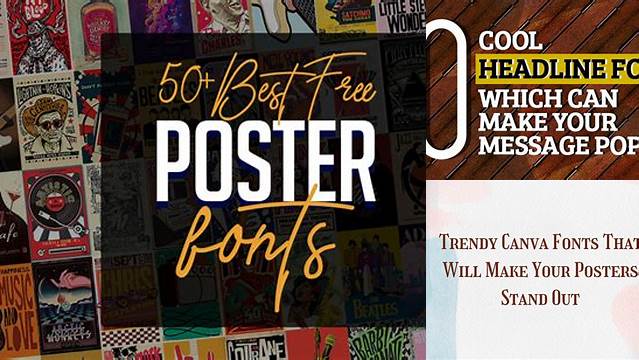
Free Poster Fonts: Stunning Titles That Grab Attention
Hey everyone! Are you looking to create eye-catching posters but struggling with the perfect title font? Don't worry, you're not alone! The title is the first thing people see, and it can make or break your poster's impact. Choosing the right font is crucial for grabbing attention and conveying your message effectively. Luckily, there's a treasure trove of free title fonts out there just waiting to be discovered. This article will dive into the world of free fonts, giving you a rundown of fantastic options for posters and guiding you on how to choose the best one for your project. Let's get started and make your posters shine!
Why the Right Title Font Matters
The title font on a poster is more than just words; it's a visual representation of your message's tone and style. Think of it as the voice of your poster, shouting out to the world. A well-chosen font can instantly communicate the feeling you want to evoke, whether it's excitement, seriousness, fun, or sophistication. Imagine using a playful, cartoonish font for a serious academic conference poster – it just wouldn't work, right? The font needs to match the content and purpose of your poster to create a cohesive and impactful design.
Furthermore, the right font plays a vital role in readability. A beautifully designed font is useless if people can't easily read it from a distance. When people walk by your poster, you want your message to jump out at them and be legible even at a glance. If the font is too thin, too decorative, or too cramped, it might get lost in the background or become a visual blur. Selecting a clear, bold, and appropriately sized font ensures that your title grabs attention and communicates its message effectively.
Beyond readability, the font you select helps establish visual hierarchy. The title is the most important element on the poster, and it should visually dominate the other text. A strong, attention-grabbing font will naturally draw the viewer's eye to the title first, creating a clear entry point to your poster's message. By contrasting the title font with the body text in terms of size, weight, or style, you guide the viewer's eye through the information in a logical and engaging way. A well-defined visual hierarchy makes your poster more appealing and easier to understand.
Lastly, the best title fonts contribute significantly to the overall aesthetic appeal of your poster. A well-chosen font elevates the design and makes your poster look polished and professional. A font that complements the imagery, color scheme, and overall theme of your poster will create a unified and visually pleasing result. This visual harmony is crucial for making a strong impression and ensuring your poster stands out from the crowd. In essence, the title font is a critical design element that should be carefully considered to maximize the effectiveness of your poster.
Font Squirrel: If you're serious about typography, Font Squirrel is a must-visit. This website focuses on high-quality, commercially licensed fonts that are 100% free for commercial use. Font Squirrel carefully curates its collection, ensuring that all the fonts meet a high standard of design and usability. They also offer a handy Font Identifier tool, which can help you identify a font from an image. This is incredibly useful if you've seen a font you like but don't know its name. Font Squirrel is a reliable source for finding fonts that are both beautiful and legally safe to use in your projects.
Creative Market (Free Goods): Creative Market is a marketplace for design assets, and they offer a section with free goods that changes every week. This often includes free fonts, graphics, and other resources. Keep an eye on the Creative Market free goods section, as you might discover some hidden gems for your poster projects. The freebies are usually available for a limited time, so it's a good idea to check back regularly to see what's new.
Behance and Dribbble: These are more than just font repositories; they're online communities for designers to showcase their work. Many designers offer free fonts as part of their portfolios on Behance and Dribbble. These fonts often have a unique, handcrafted feel, making them perfect for projects that need a personal touch. Browsing through these platforms can be a great way to discover new and emerging font designers and support the creative community.
Popular Font Styles for Posters
Choosing the right font style is super important when designing posters. The style of the font helps to set the tone and grab the attention of your audience. Let's take a look at some popular font styles and when they work best:
- Serif Fonts: Serif fonts have those little decorative strokes, or